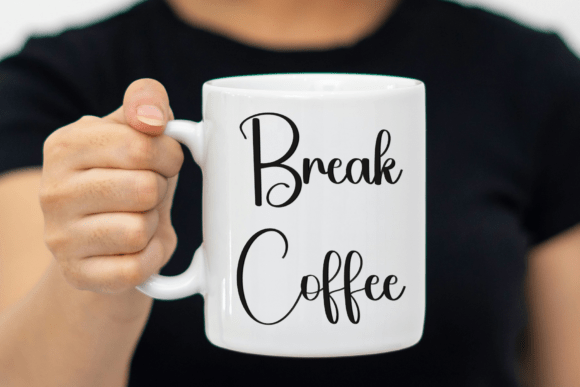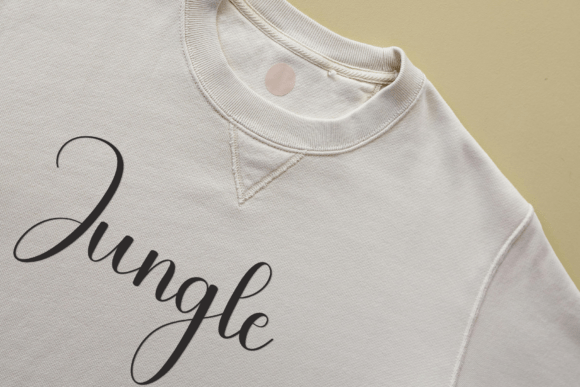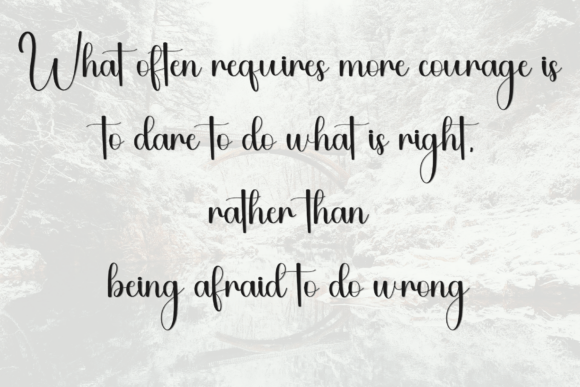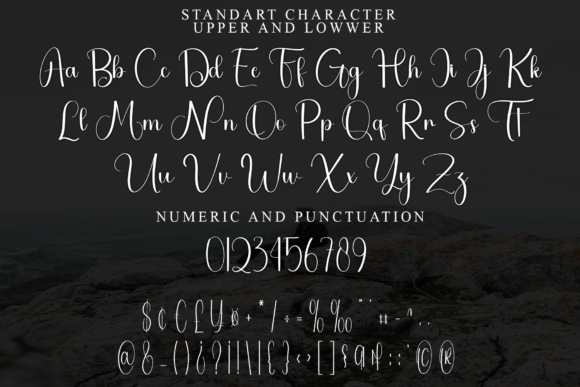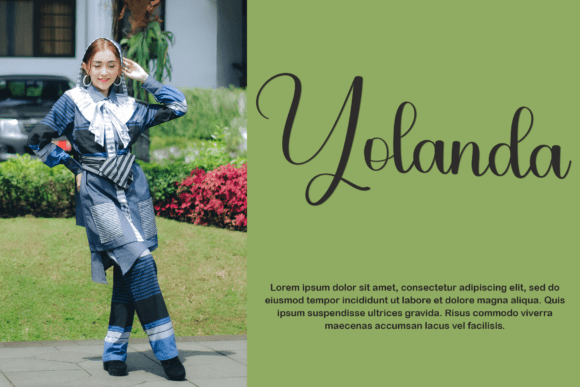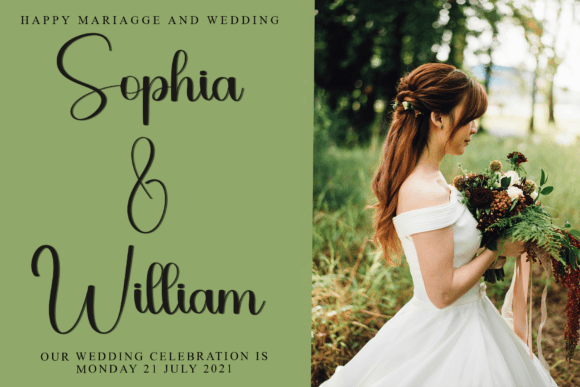
Introducing Grading Font: A Sweet and Friendly Handwritten Delight
Are you on the hunt for a font that adds a personal touch to your designs? Look no further than Grading Font, a sweet and friendly handwritten font that’s perfect for a wide range of creative projects. With its natural and unique style, Grading Font is incredibly versatile, making it an excellent addition to any designer’s toolkit.
The Charm of Grading Font
Grading Font boasts a charming, handcrafted aesthetic that’s sure to capture the hearts of designers and crafters alike. Its handwritten style exudes warmth and approachability, making it an ideal choice for projects that require a personal touch. Whether you’re working on a logo, branding materials, or marketing collateral, Grading Font is sure to bring a smile to your audience’s faces.
What Makes Grading Font So Special?
So, what sets Grading Font apart from other fonts on the market? Here are just a few reasons why Grading Font is a standout:
- Natural and Unique Style: Grading Font’s natural, handwritten style gives it a unique personality that’s hard to find in digital fonts.
- Highly Versatile: With Grading Font, the possibilities are endless. Use it for logos, branding, packaging, or any other project that requires a personal touch.
- Easy to Read: Despite its handwritten style, Grading Font is incredibly legible, making it perfect for body text and headlines.
- Perfect for Crafting and DIY Projects: Grading Font is a great choice for crafters and DIY enthusiasts who want to add a personal touch to their projects.
How to Use Grading Font in Your Designs
Grading Font is incredibly easy to use, even for designers who are new to working with handwritten fonts. Here are a few tips to get you started:
- Pair it with Bold Fonts: Grading Font pairs beautifully with bold, sans-serif fonts. Try pairing it with a font like Arial Black or Impact for a striking contrast.
- Use it for Headlines and Titles: Grading Font is perfect for headlines and titles, where its unique style can really shine.
- Add it to Your Branding Materials: Use Grading Font to add a personal touch to your branding materials, such as business cards, brochures, and letterheads.
Grading Font in the World of Crafting and DIY
Grading Font is a great choice for crafters and DIY enthusiasts who want to add a personal touch to their projects. Here are a few ways you can use Grading Font in your crafting and DIY projects:
- Journaling and Scrapbooking: Grading Font is perfect for journaling and scrapbooking projects, where its handwritten style can add a personal touch.
- Handmade Cards and Invitations: Use Grading Font to create beautiful, handmade cards and invitations that are sure to impress.
- DIY Signs and Labels: Grading Font is a great choice for DIY signs and labels, where its unique style can add a touch of personality.
In conclusion, Grading Font is a sweet and friendly handwritten font that’s perfect for designers and crafters alike. With its natural and unique style, Grading Font is incredibly versatile, making it an excellent addition to any creative project. Whether you’re working on a logo, branding materials, or crafting and DIY projects, Grading Font is sure to bring a touch of personality and whimsy to your designs.